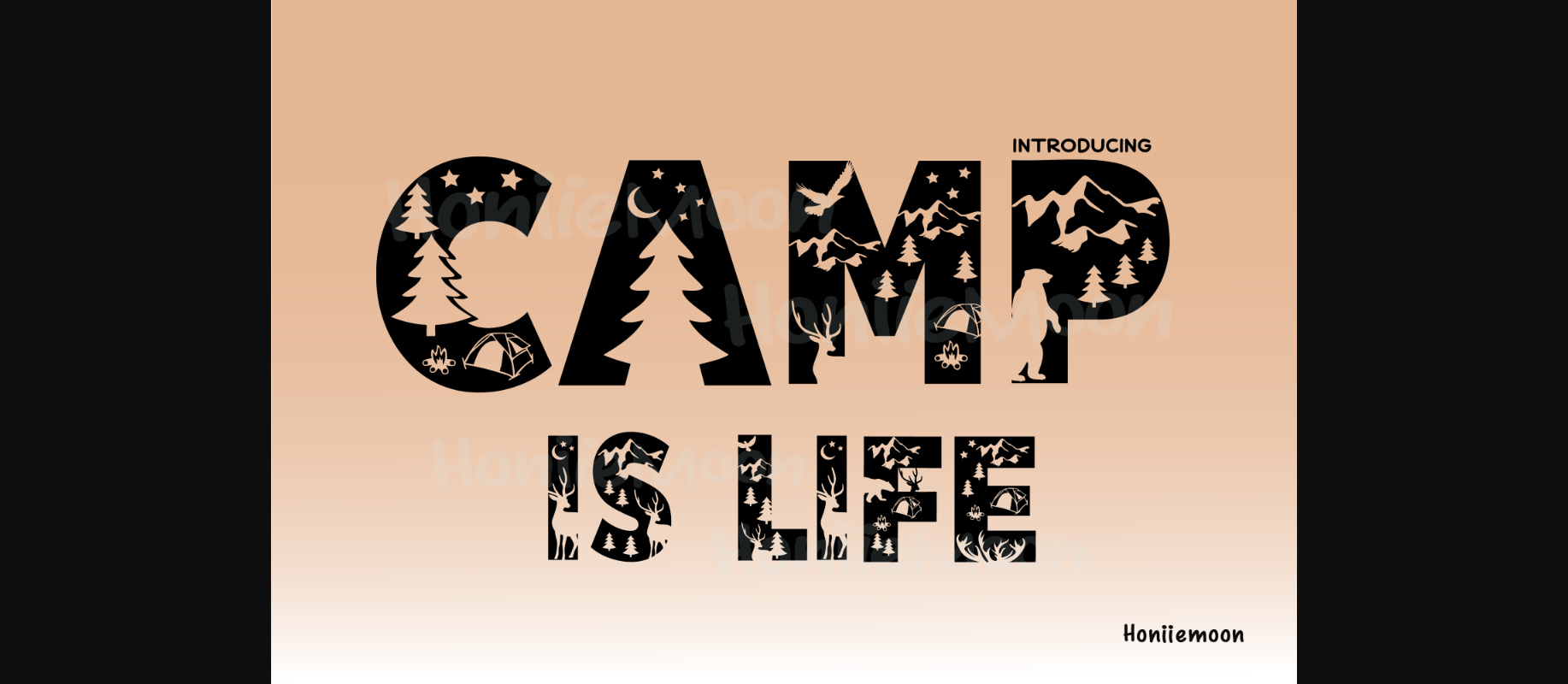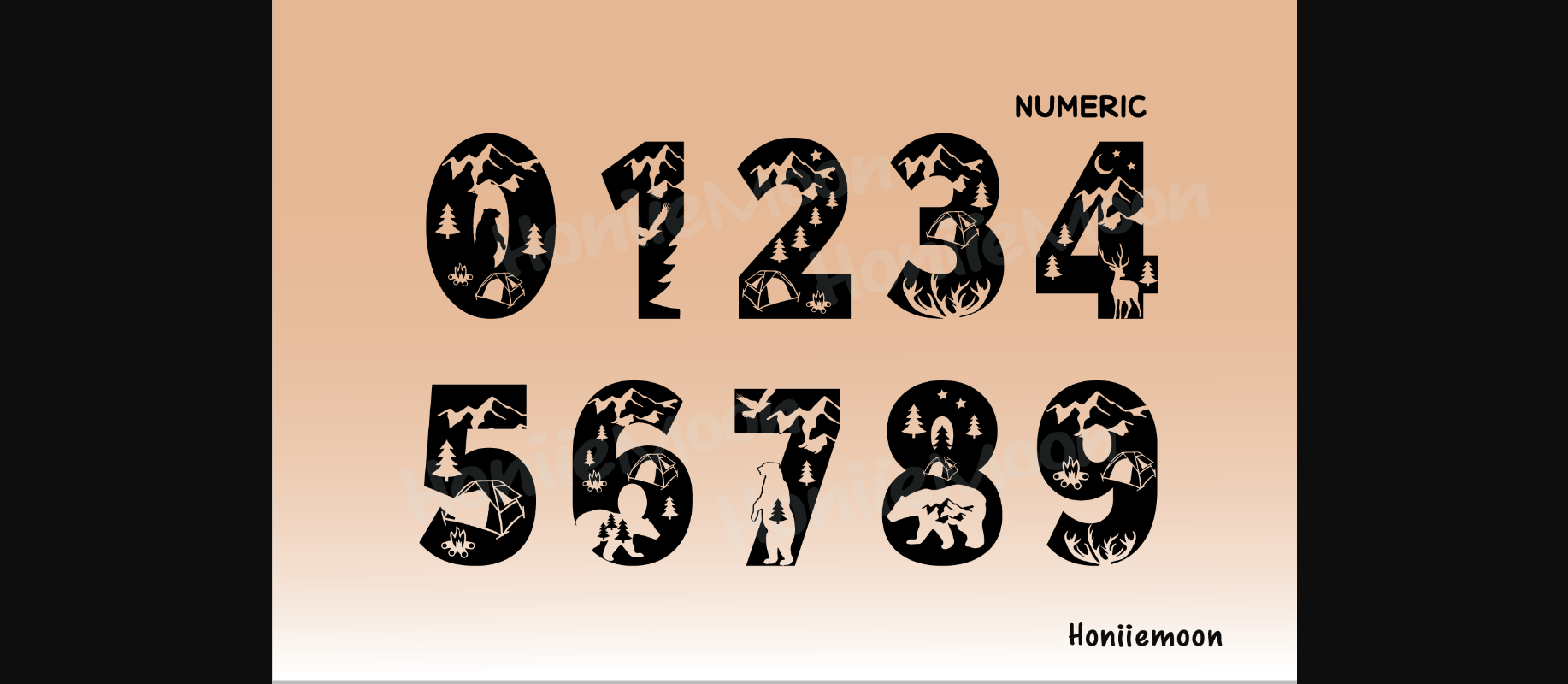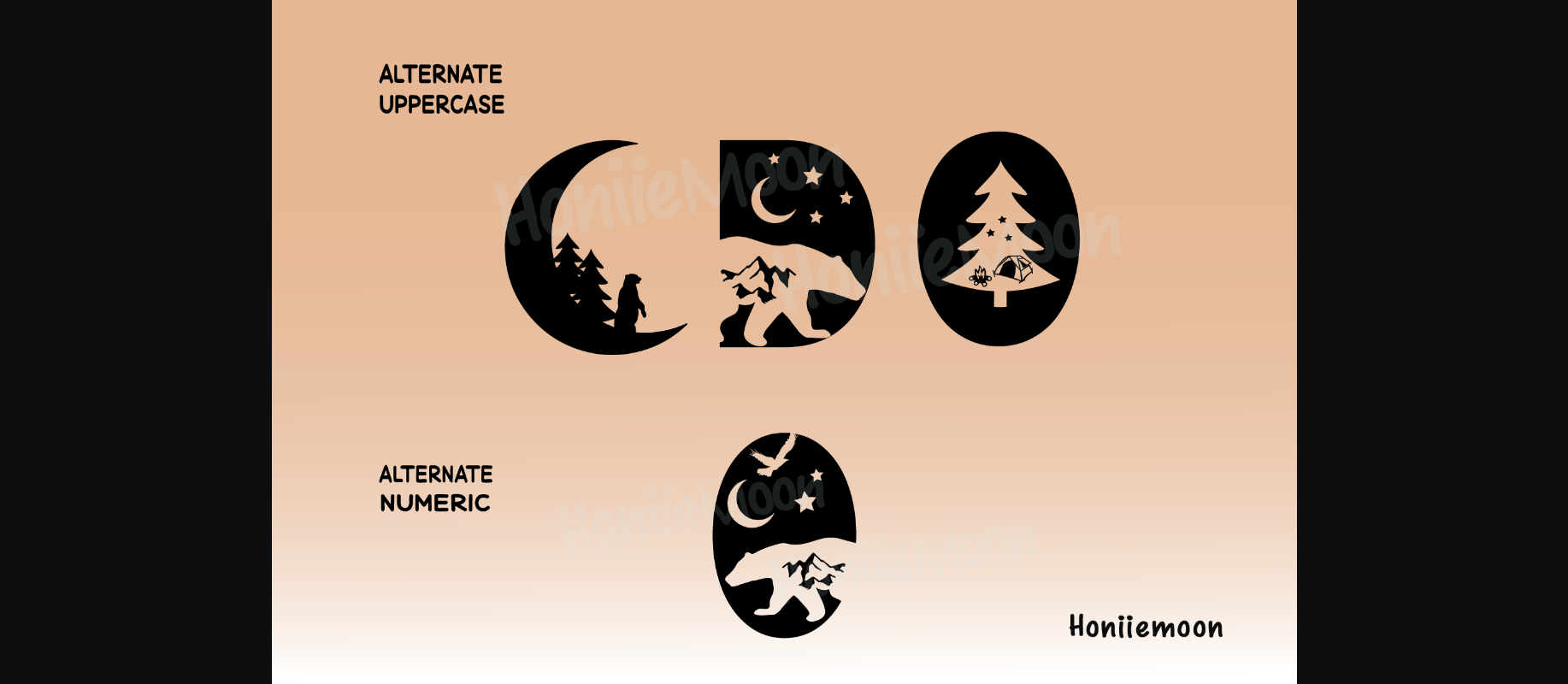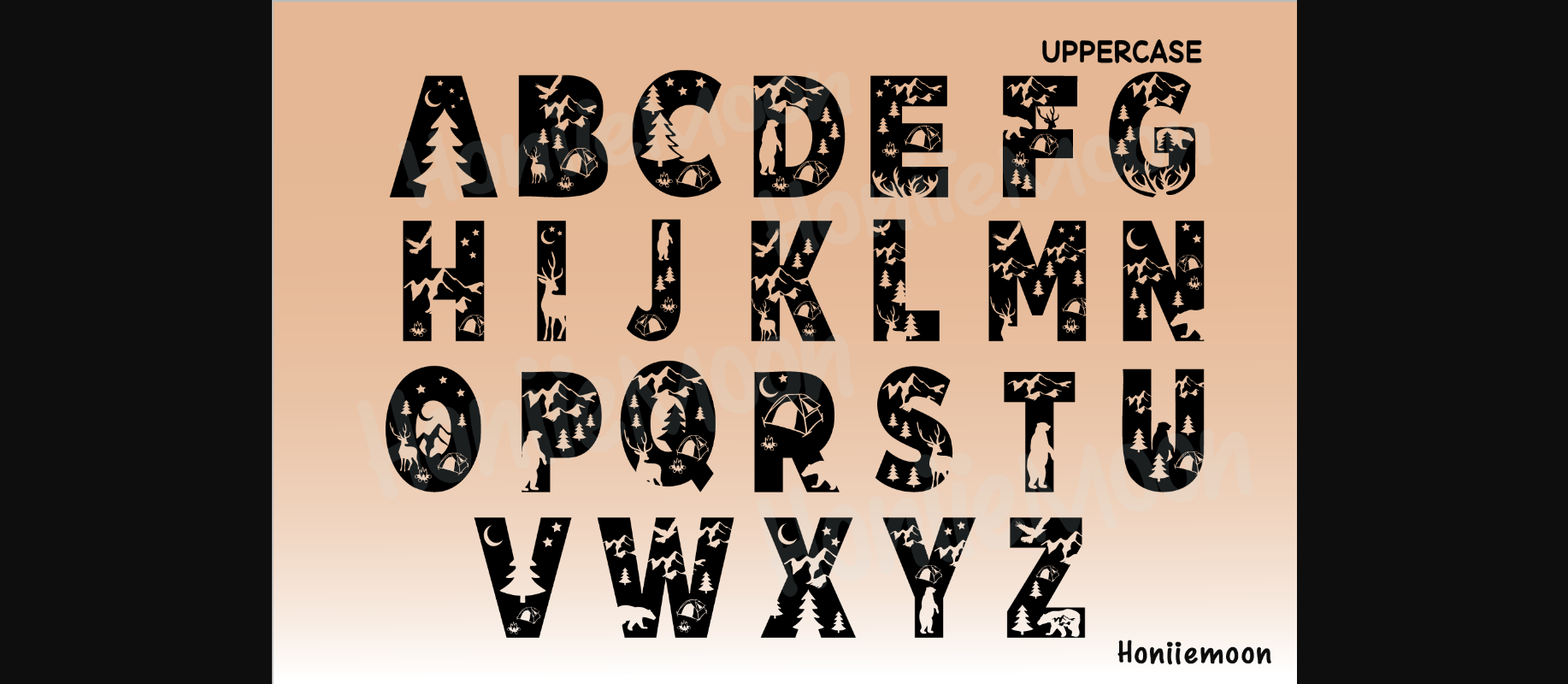
Camp is Life Font
About Camp is Life Font
Camp Is Life is a cool, original and fun decorative font. It looks both cute and authentic and it will enhance each of your designs. The only limit is your imagination.